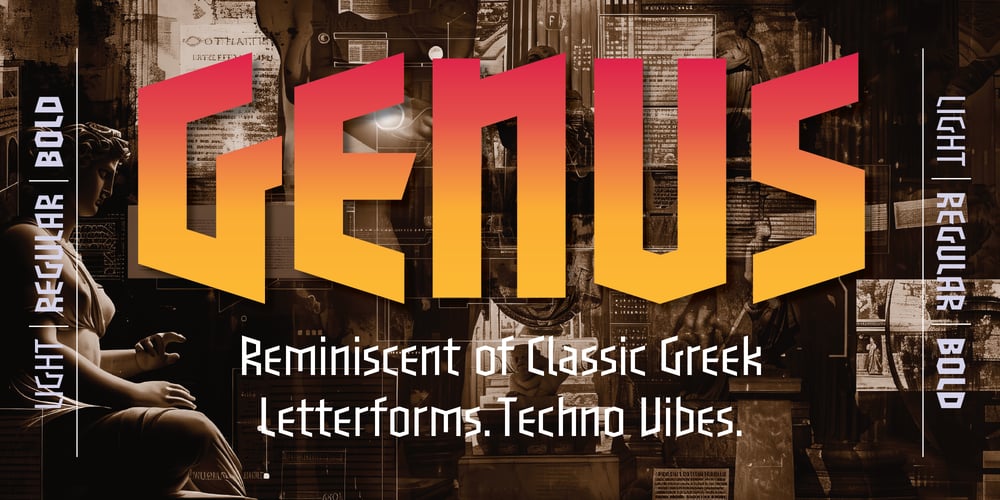
Genus BF
Genus BF font
Genus BF Font Family was designed by John Bomparte and published by Bomparte’s Fonts. Genus BF contains 3 styles and family package options. Genus BF is a fusion of strong diagonals among clean, geometric lines. The result is a visually-striking dynamic that grabs attention.Whenever, wherever your design project requires a futuristic, scientific or technological aesthetic, Genus BF fits right in.Genus BF is also useful for creations related to logos, signage, packaging, branding, gaming graphics, and etc.Stylistic Alternates are available for “a”, “e”, “i”, “j”, “k”, “m”, “w”, “Q” and “U”.And for Stylistics Sets: • Stylistic Set 01: alternate “a” and “e” • Stylistic Set 02: alternate “i”, “j”, “k”, “m” and “w”• Stylistic Set 03: additional alternates for “i”, “j”• Stylistic Set 04: alternate “Q”, and “U”• Stylistic Set 05: alternate “0” (zero)